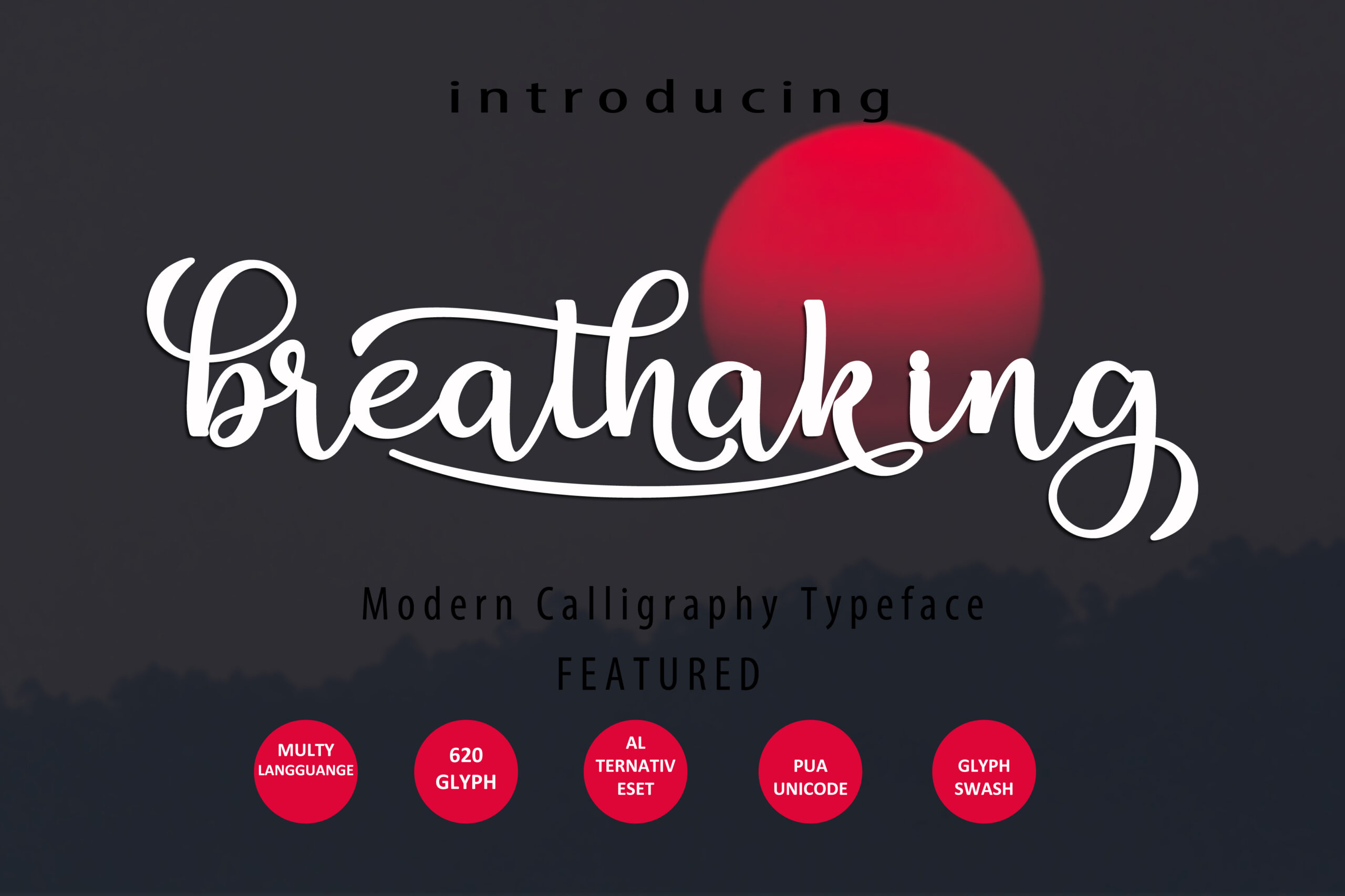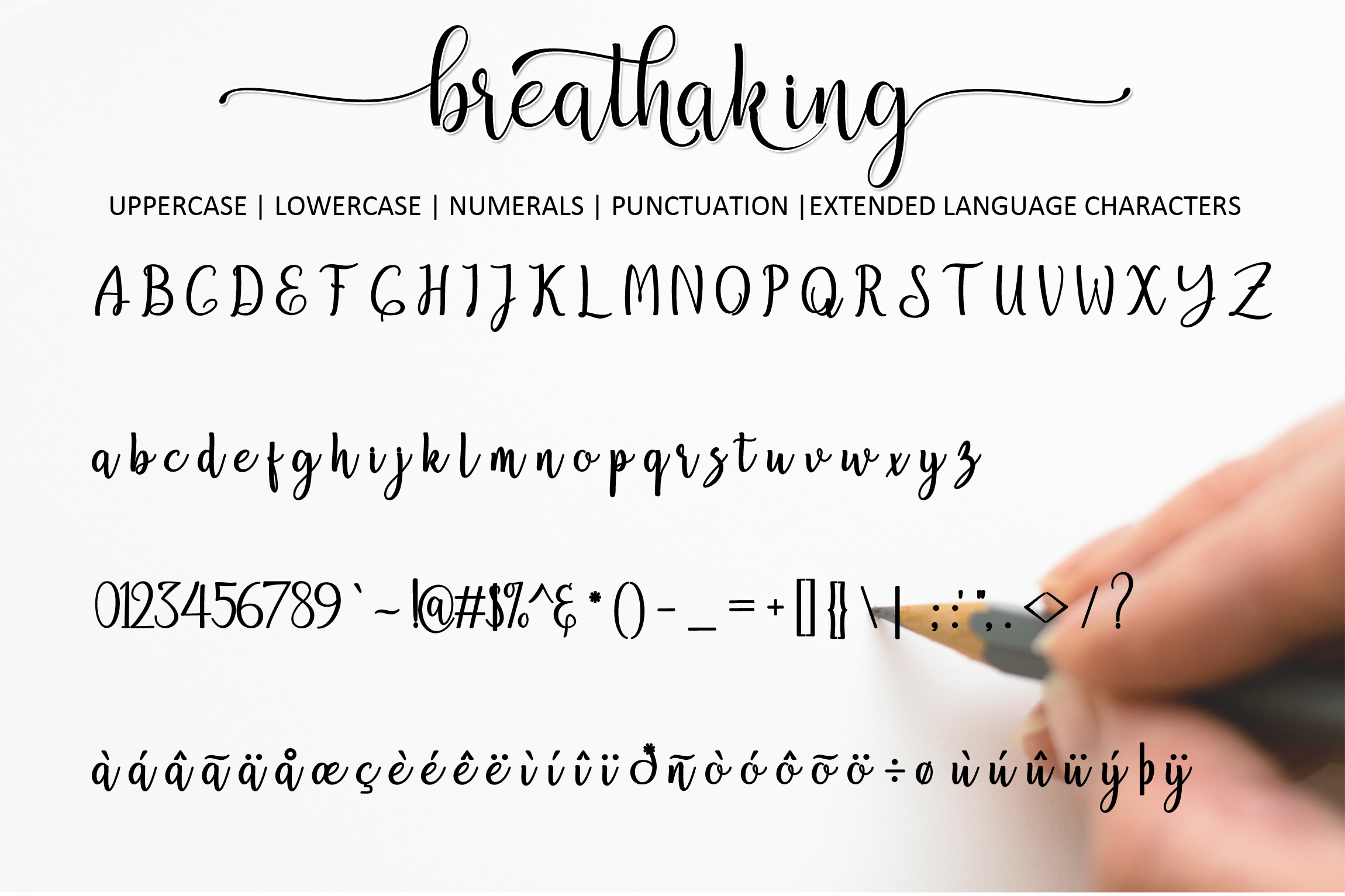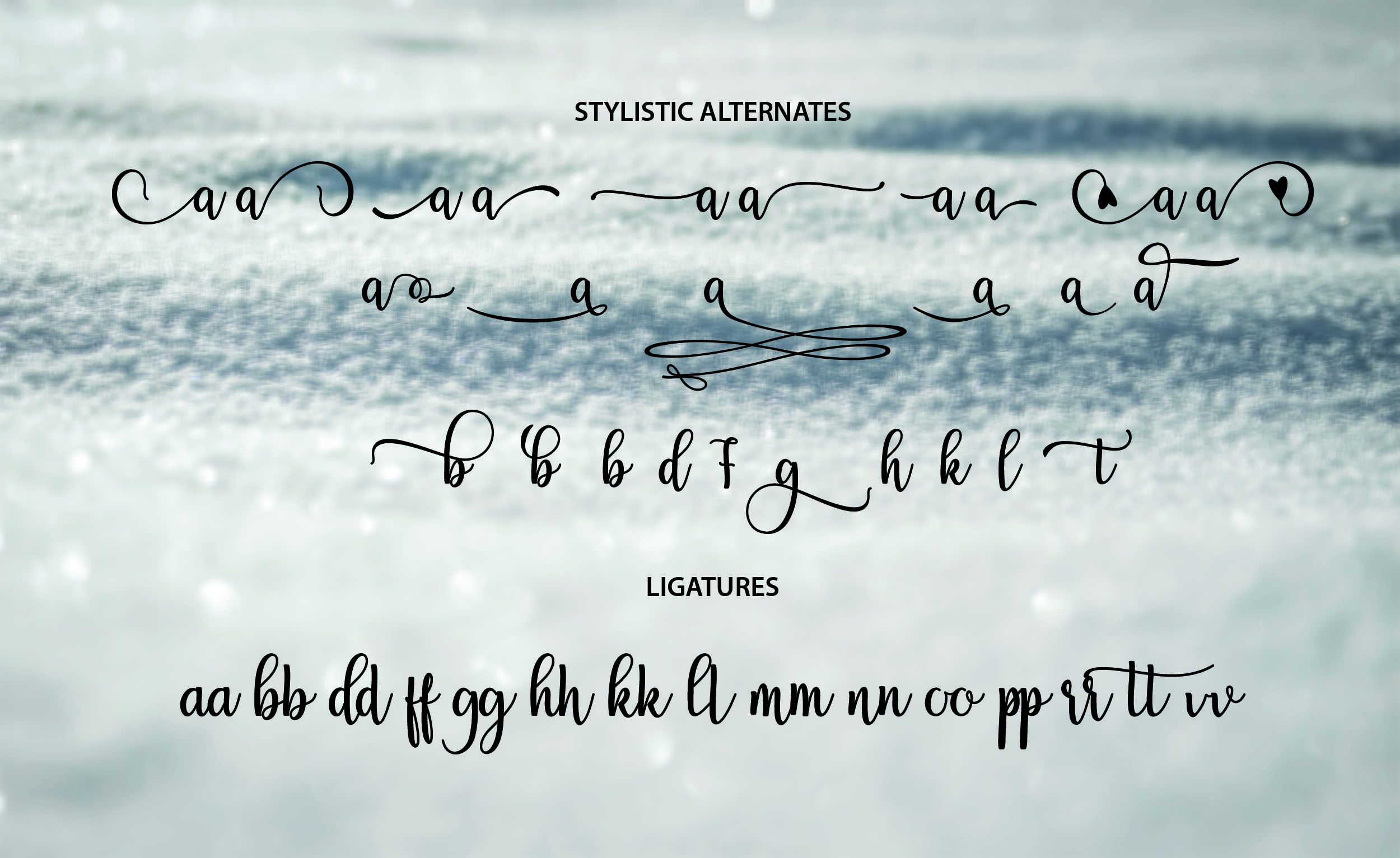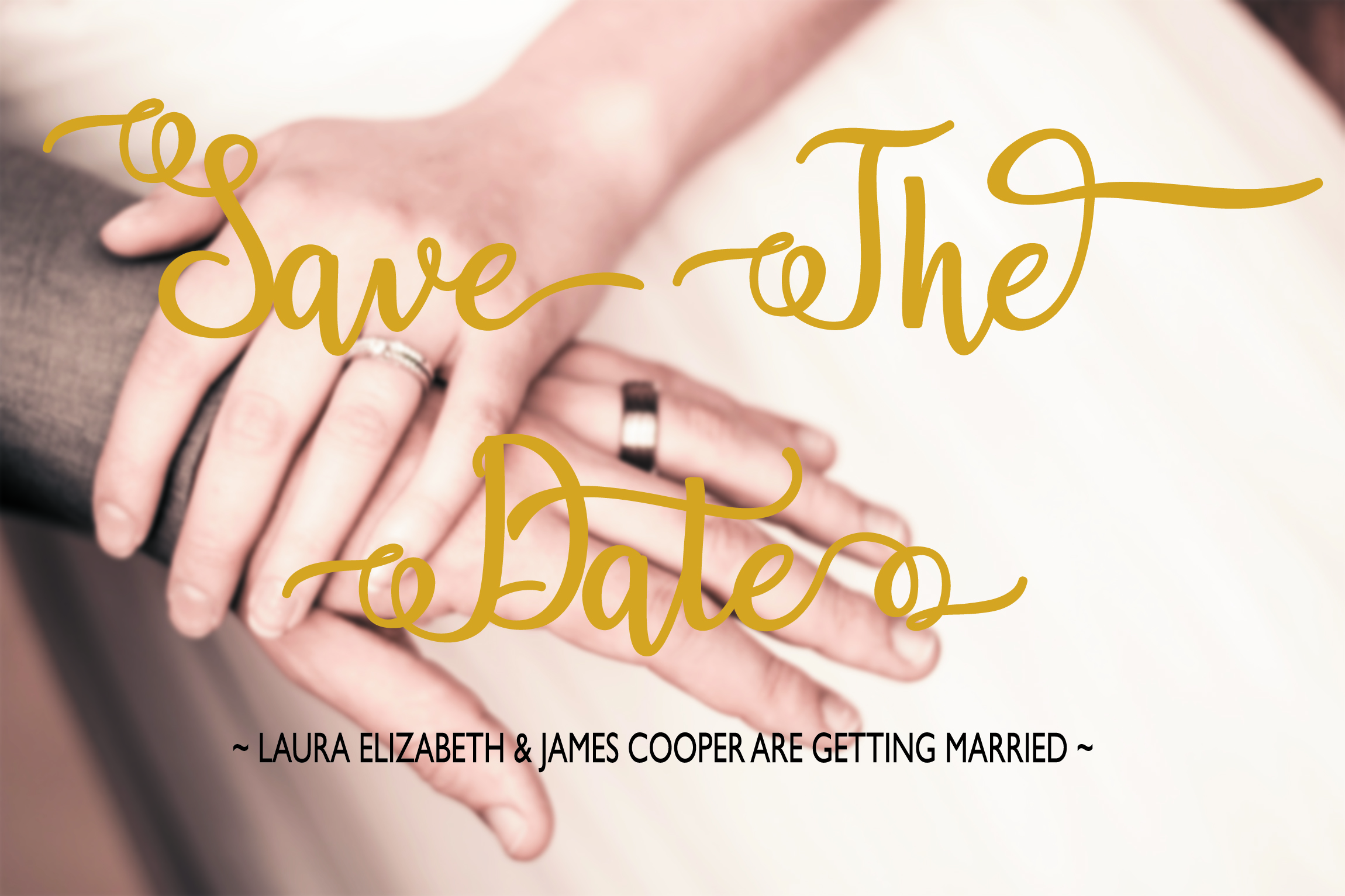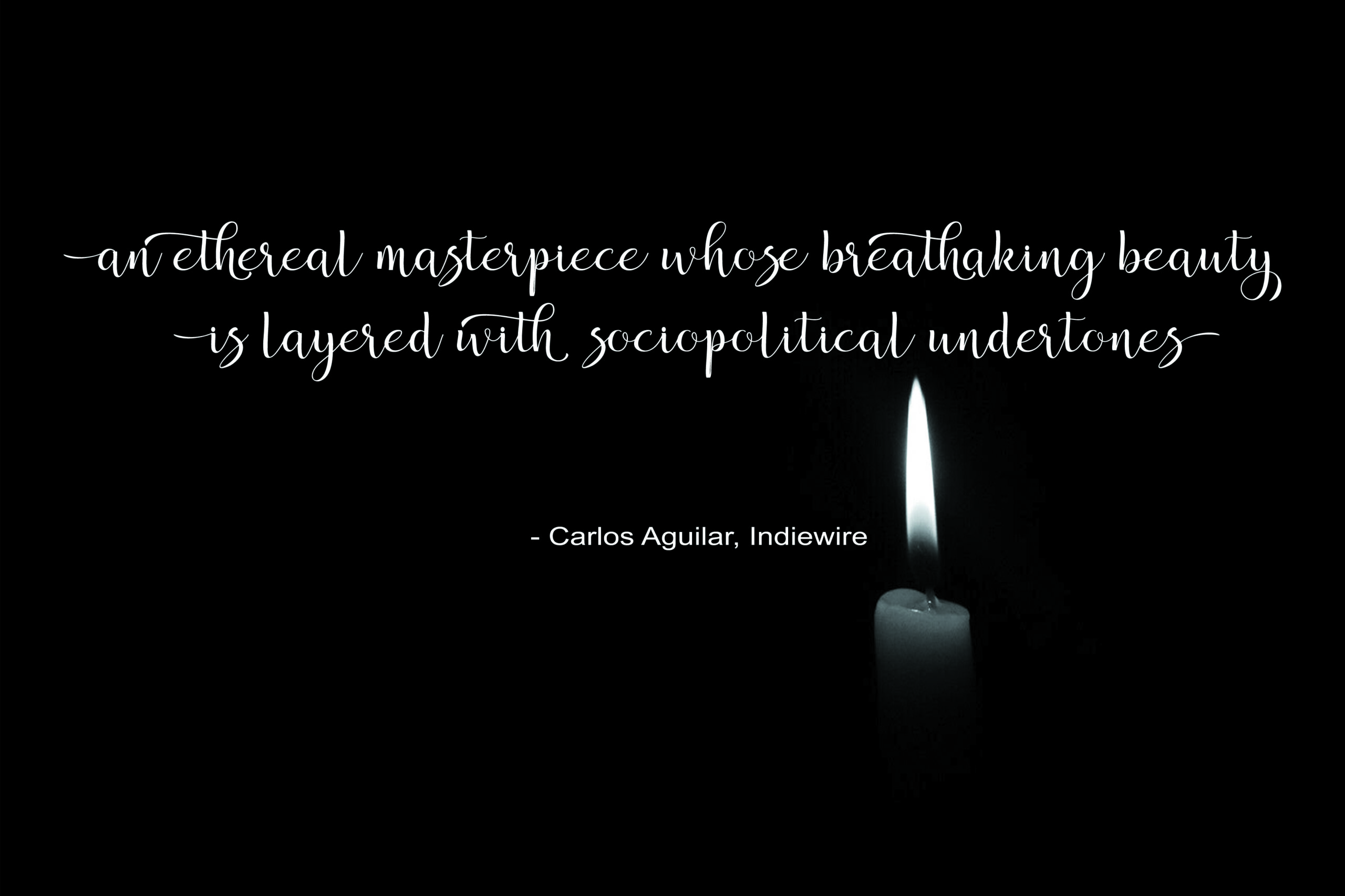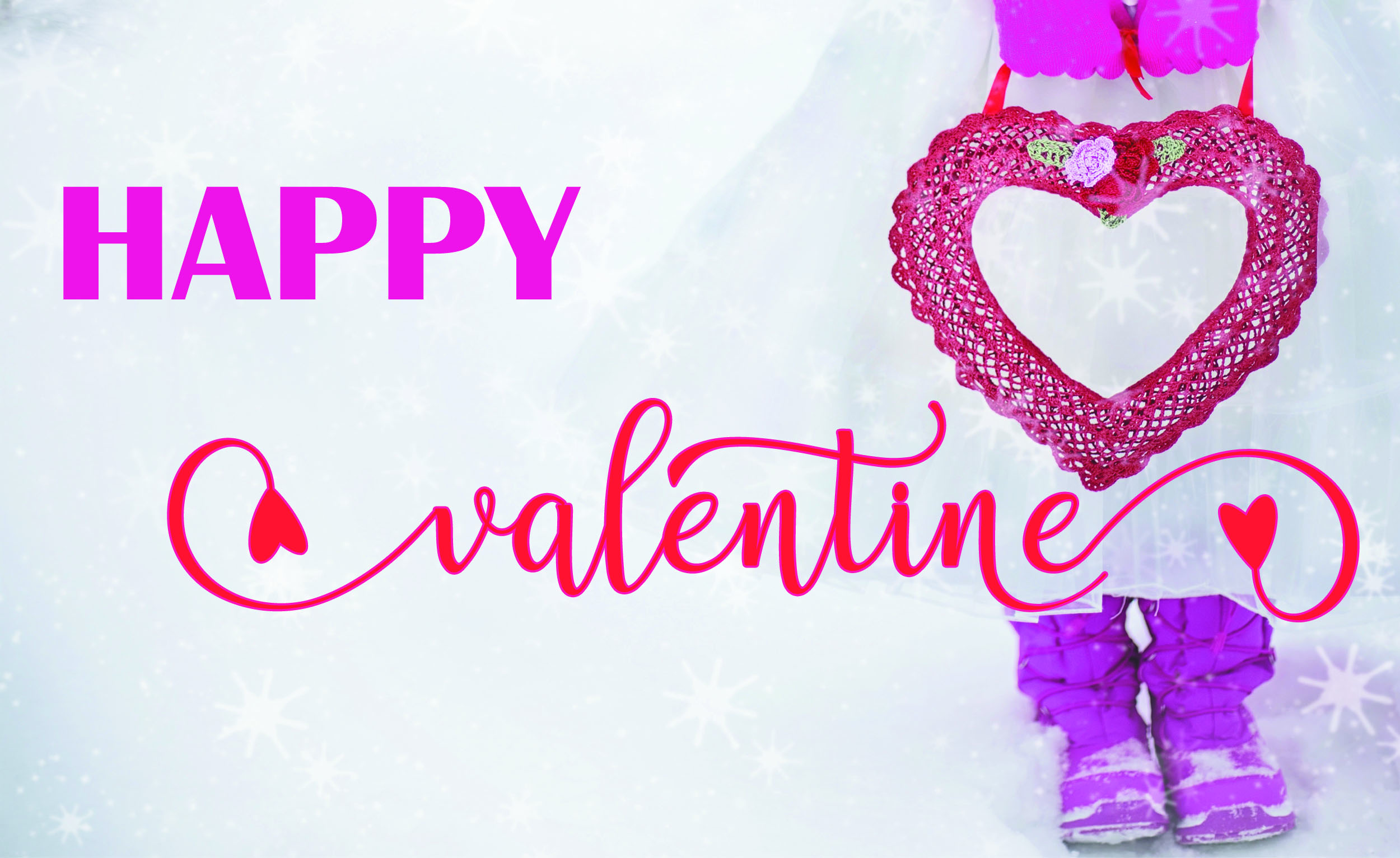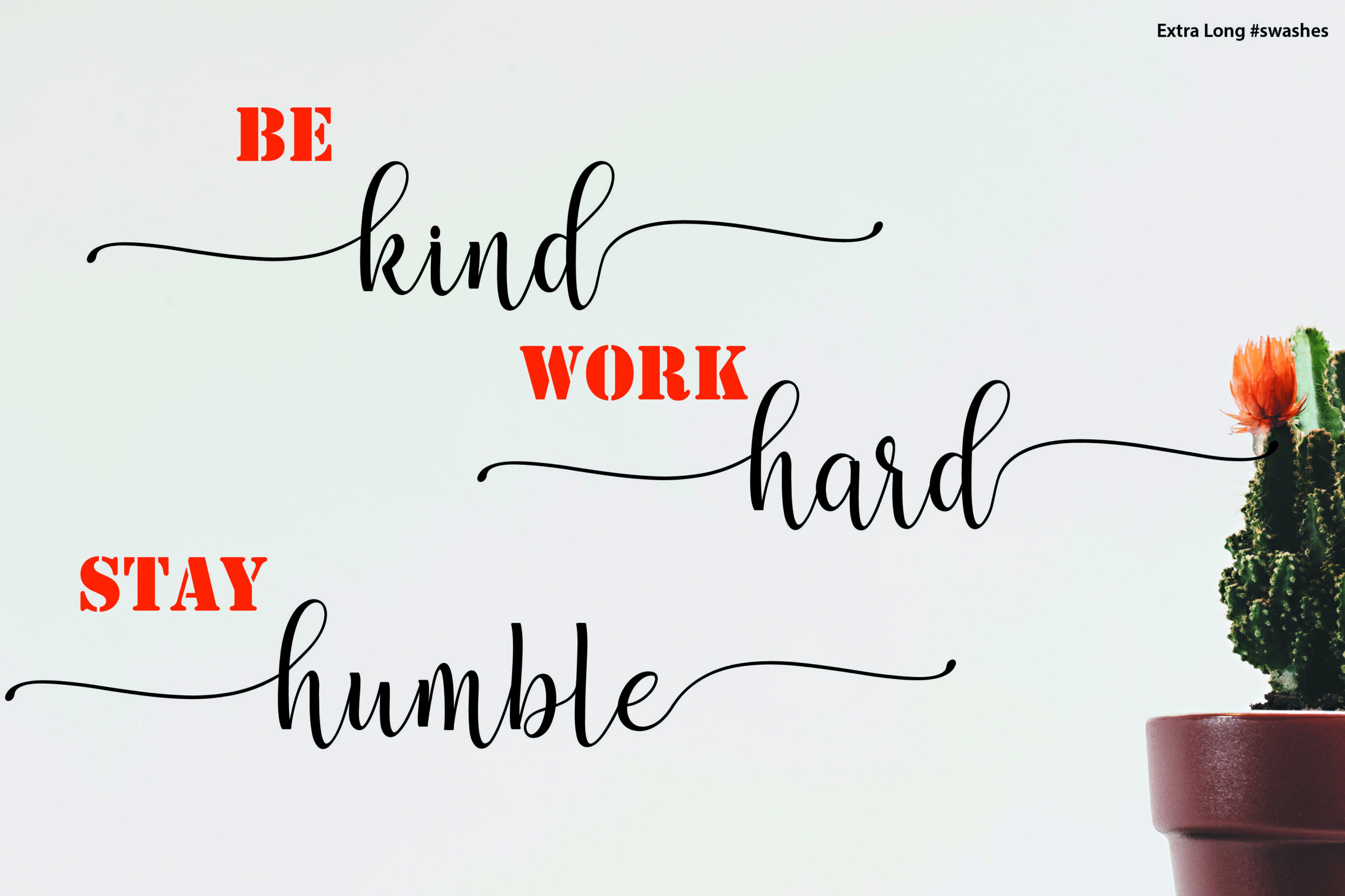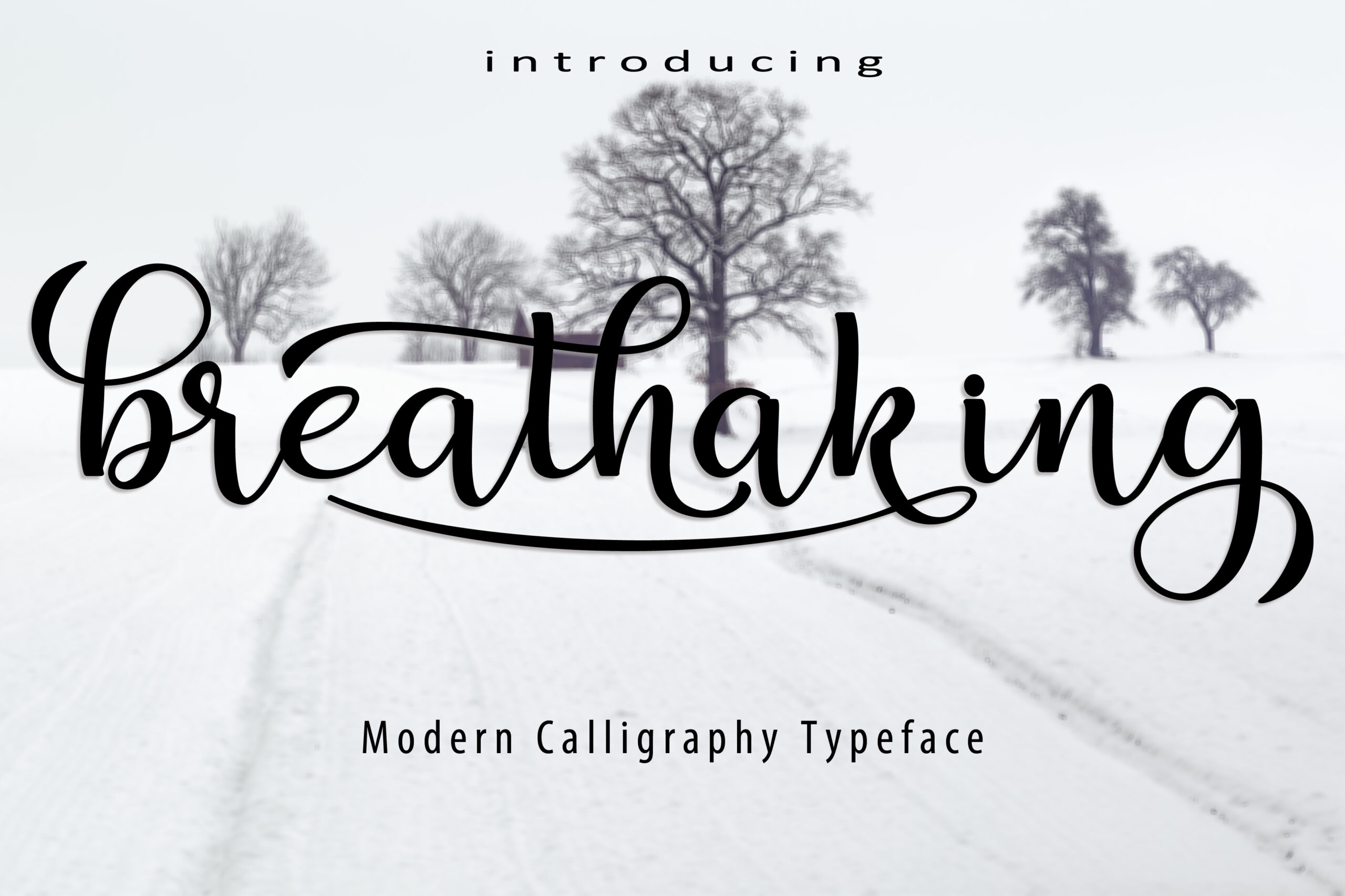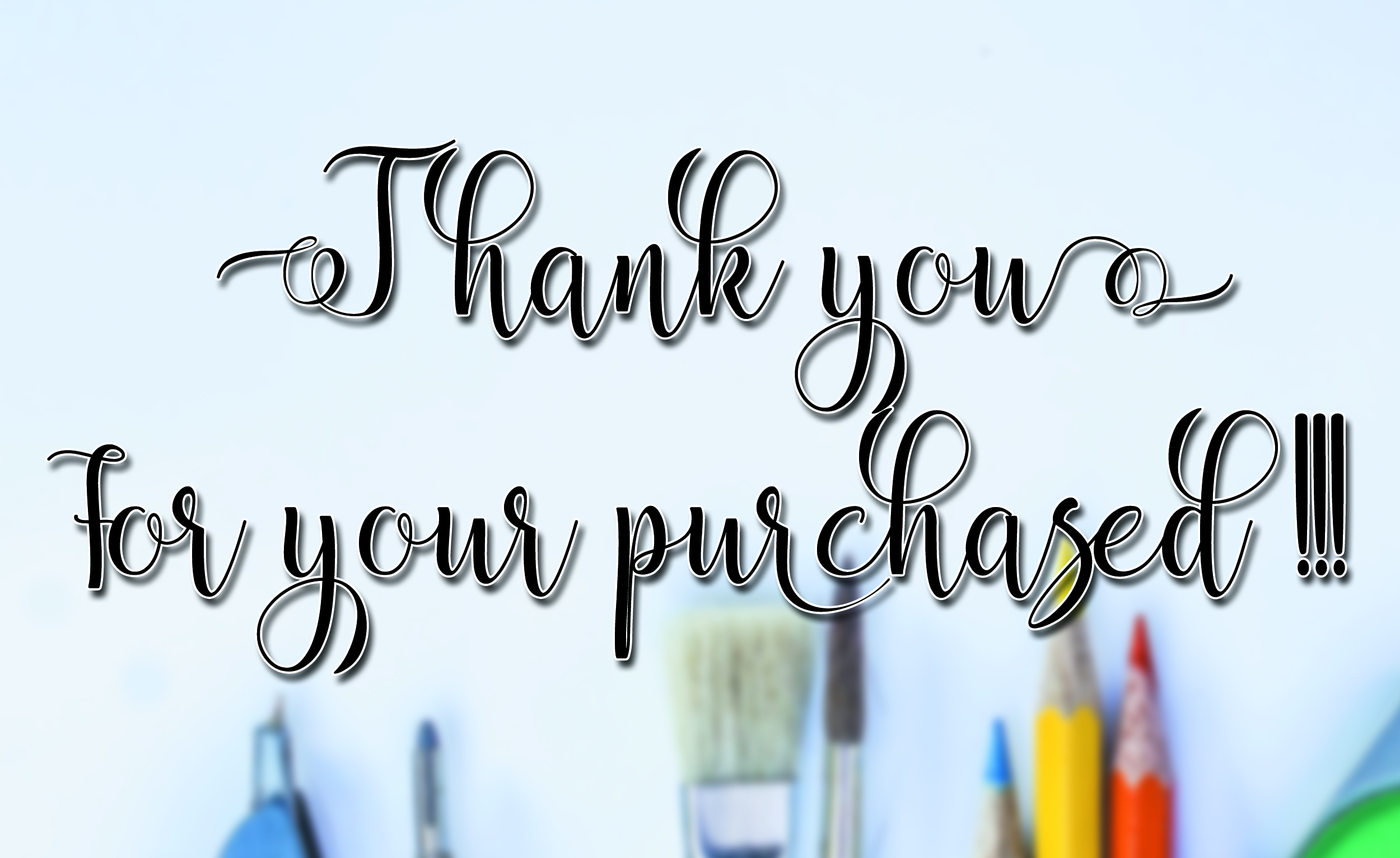
Breathaking Script Font
About Breathaking Script Font
Breathaking is a brand new fresh and modern script crafted in a calligraphy style. This font is perfect for a wide range of display and headline designs, and can add a ton of charm to holiday messages or for special events.